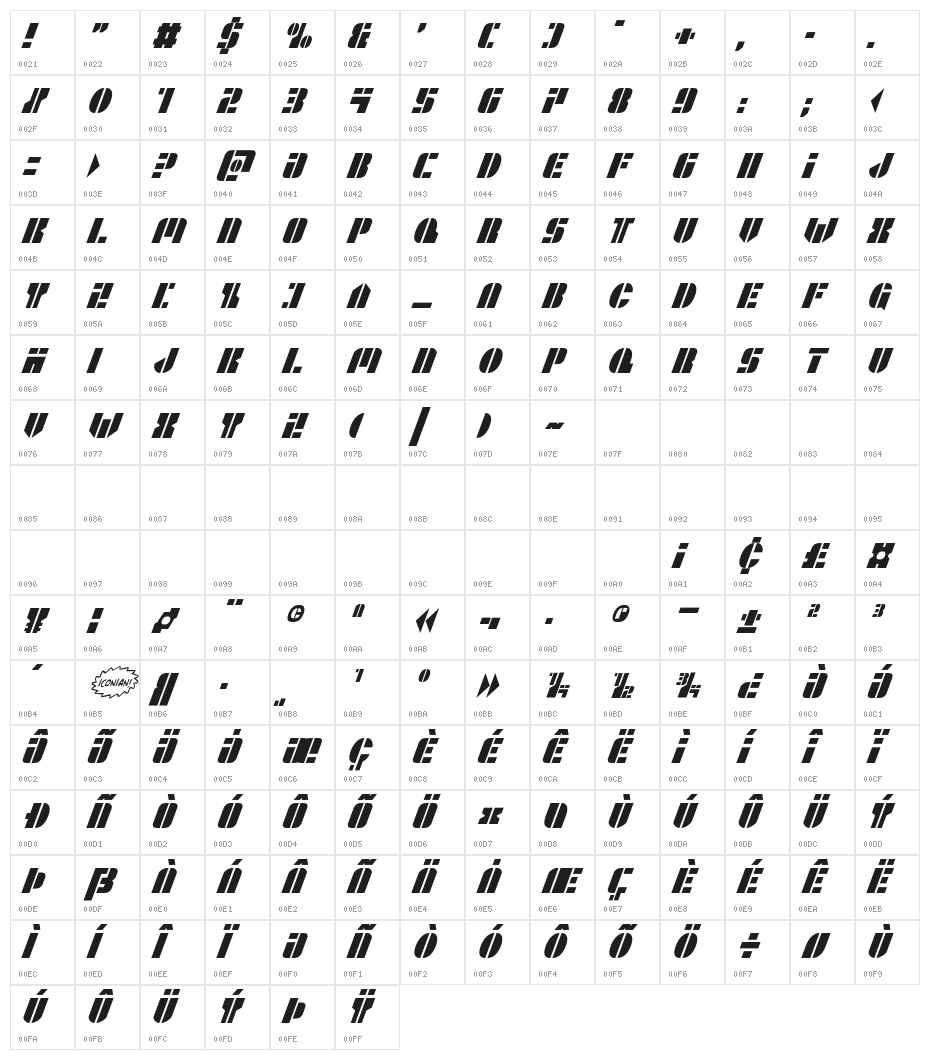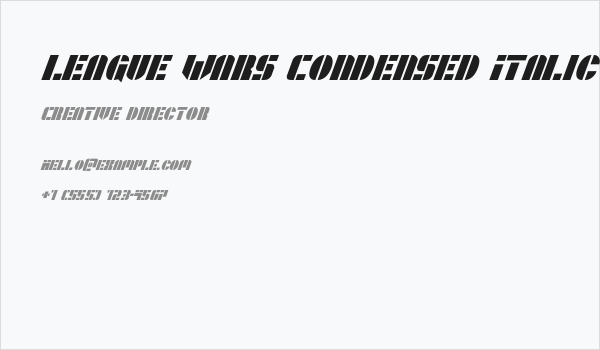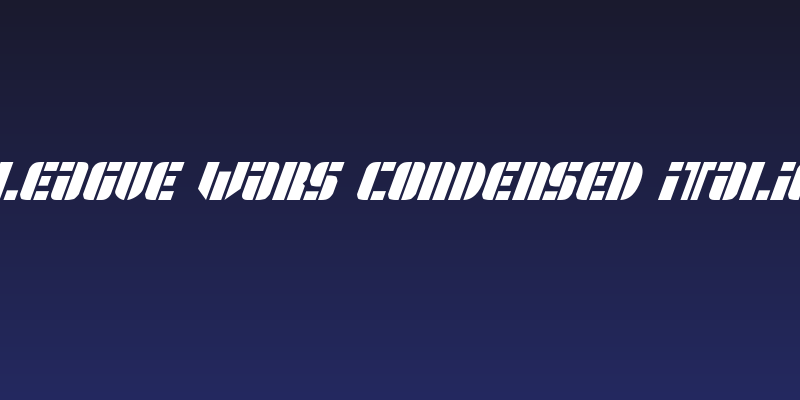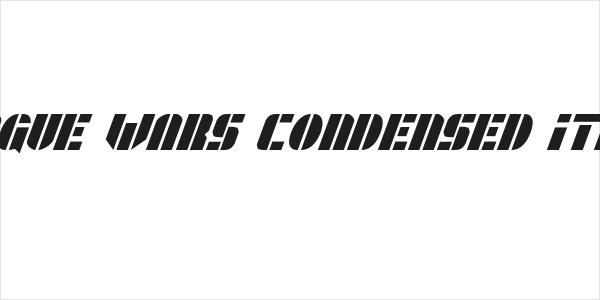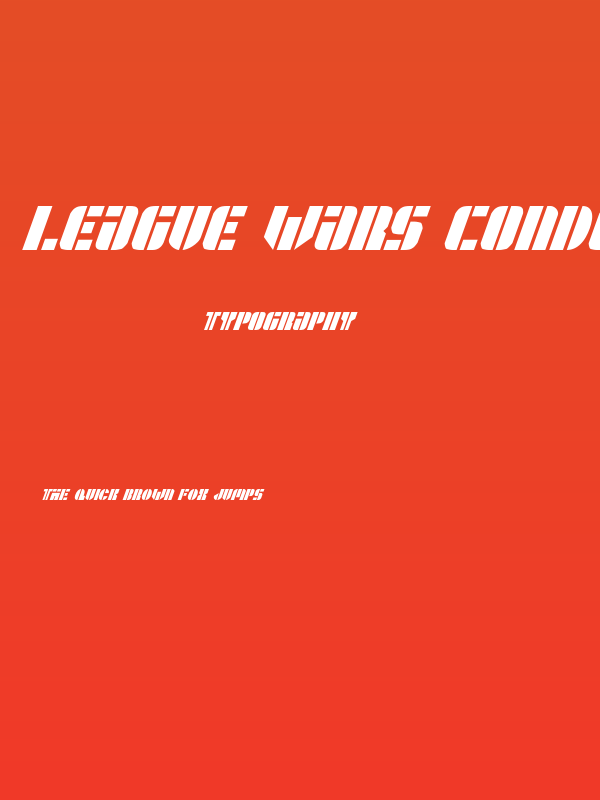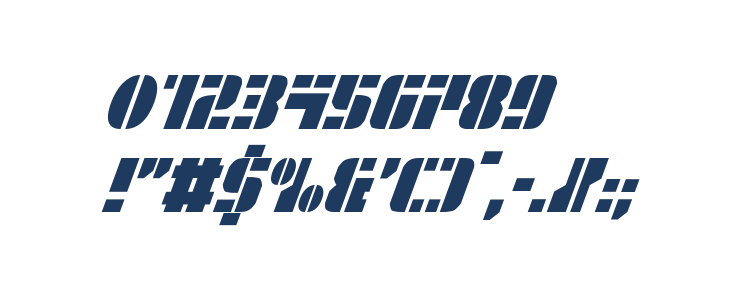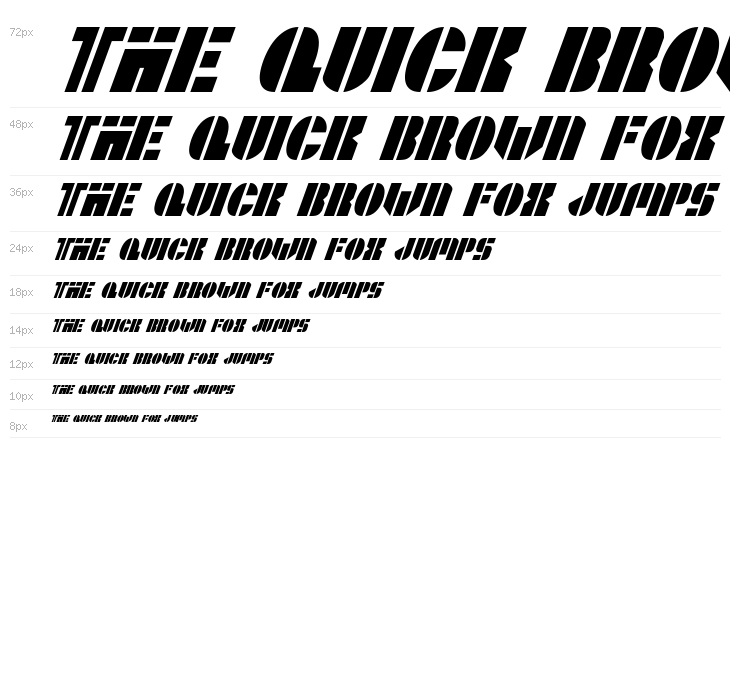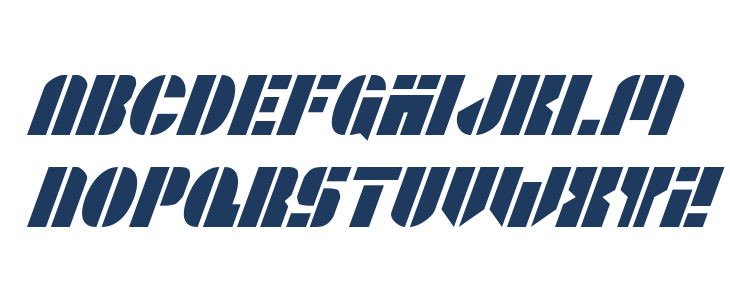
League Wars Condensed Italic Font
League Wars Condensed Italic Description
This font features a bold, condensed style with a distinct italic slant, giving it a dynamic and energetic appearance. The characters are designed with sharp angles and a high contrast between thick and thin strokes, creating a striking visual impact. The uppercase and lowercase letters maintain a consistent style, with the uppercase letters exhibiting a strong presence. The numbers and special characters are equally bold, ensuring readability and uniformity across different uses. This font's unique design makes it suitable for projects that require a modern and edgy look.